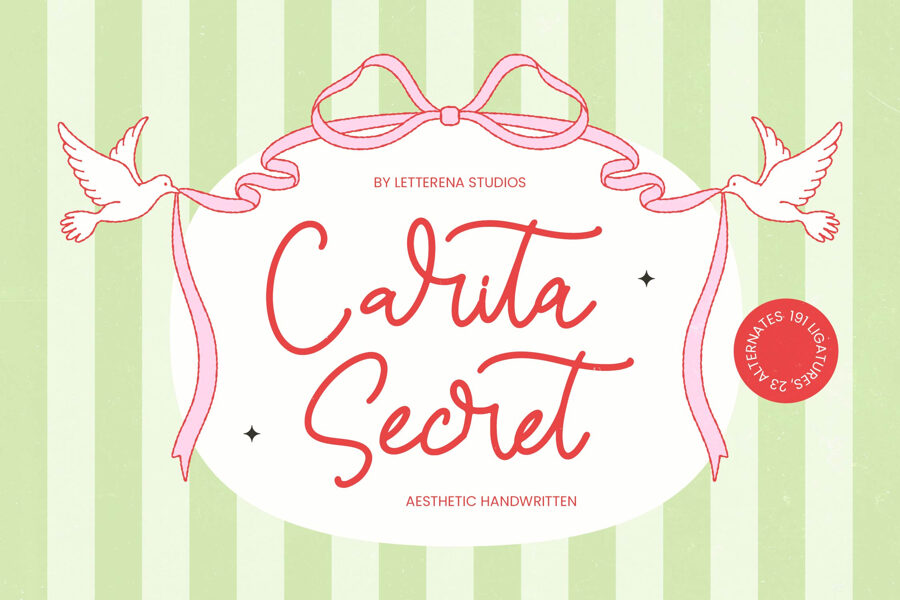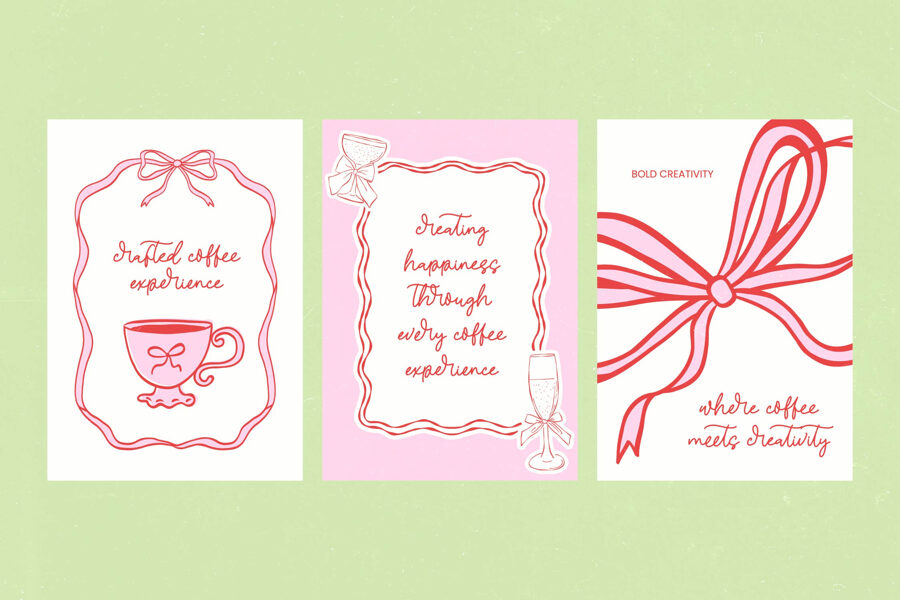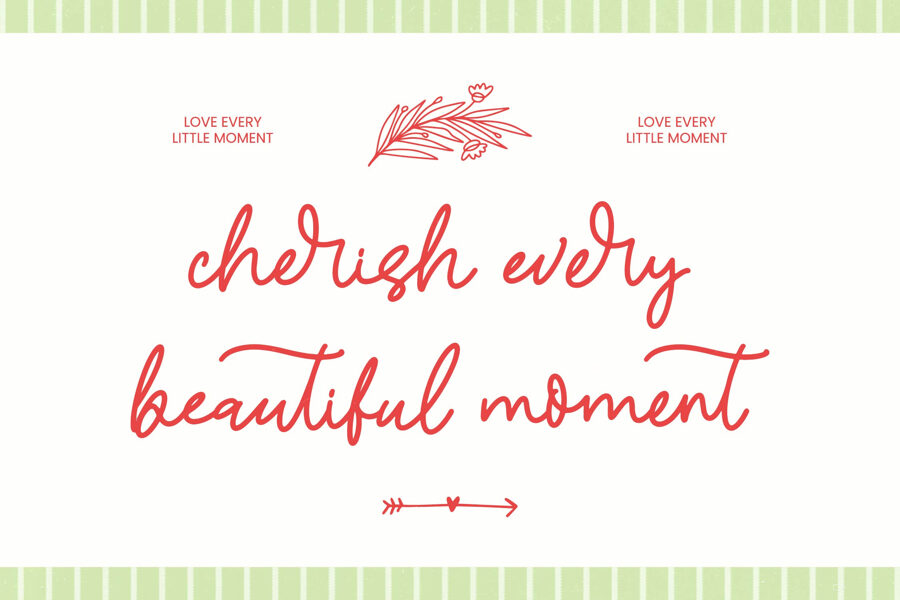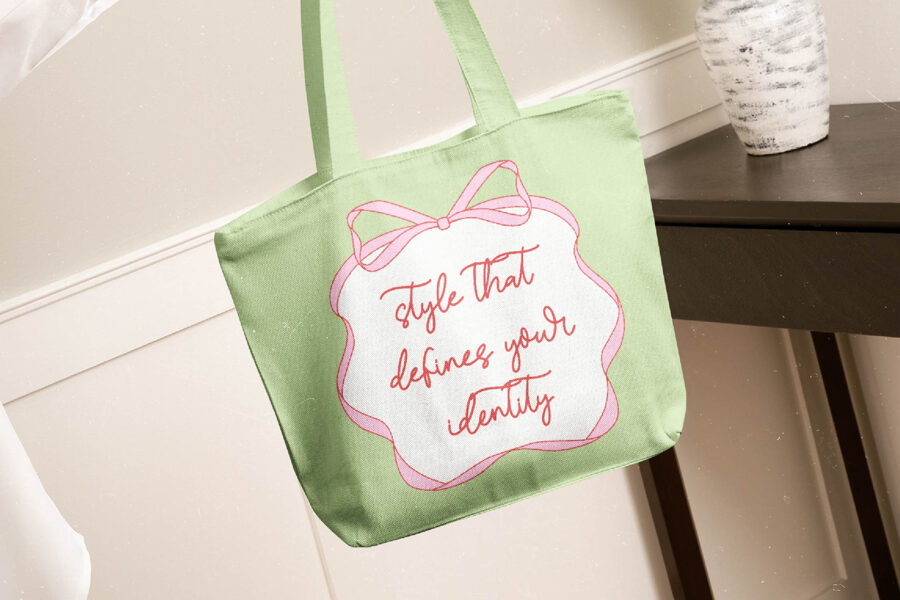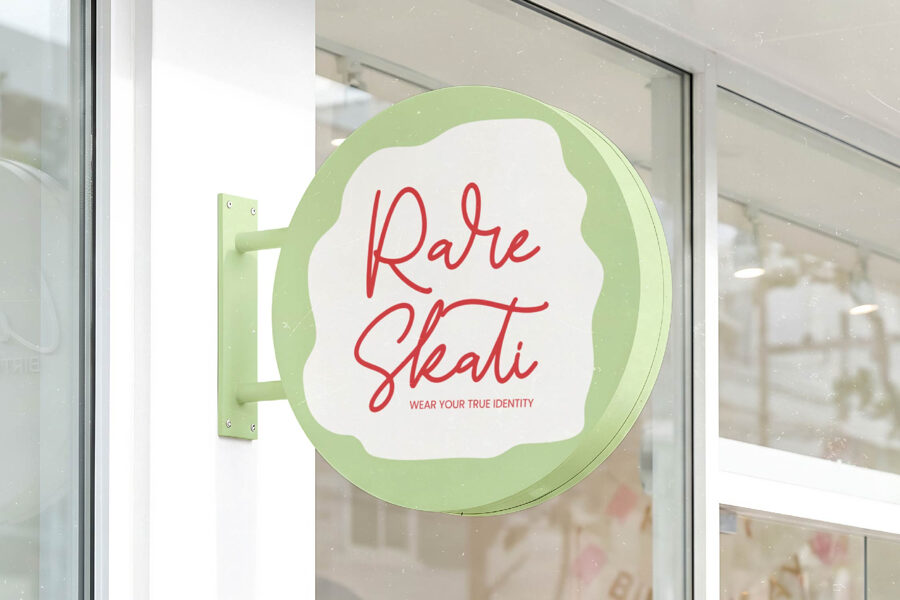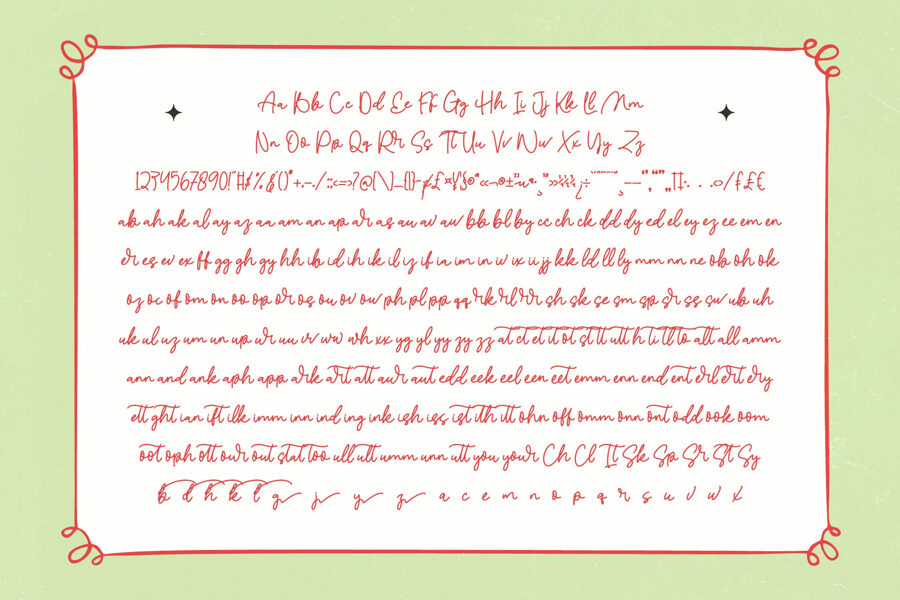
Carita Secret Font
Elevate your design with Carita Secret, a sophisticated handwritten font. It balances artistic flair and modern elegance, offering a monoline script that feels intimate and professional. Perfect for luxury branding, high-end packaging, and fashion editorial layouts, this font adds a human touch to your brand’s identity.
With extensive multilingual support and customizable features, it seamlessly adapts to global markets and projects, allowing you to create a unique look that stands out.